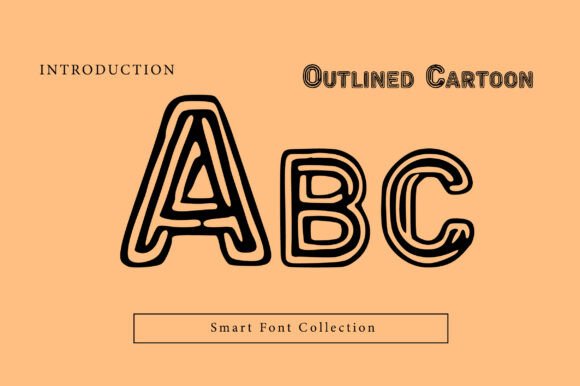
Introduction to Outlined Cartoon Font
Remember that moment when you stumbled upon the perfect font for a project, and it instantly elevated the entire design? That’s exactly what the Outlined Cartoon Font can do for your next creative project. With its bold, playful style, this font is a game-changer for designers looking to add a touch of youthful excitement to their designs.
As a versatile design resource, the Outlined Cartoon Font is perfect for a wide range of applications, from children’s event flyers to high-impact merchandise. Its unique “double-line” outline effect gives every character an immediate 3D, comic-book presence, making it a standout choice for designers who want to make a statement.
Key Features of Outlined Cartoon Font
- Unique, hand-drawn design that adds a creative touch to any project
- Outstanding for use in children’s books, magazines, and other publications that require a playful and engaging design
Honest Review: Outlined Cartoon Font
I recently came across the Outlined Cartoon Font and was excited to give it a try. As a designer, I’m always on the lookout for unique and high-quality design resources to enhance my creative projects.
The Outlined Cartoon Font is a fantastic addition to any design library, offering a playful and modern aesthetic that’s perfect for a variety of applications. ✨ One of the standout features of this font is its transparent background, making it incredibly versatile and easy to use.
Overall, I’m impressed with the Outlined Cartoon Font. It’s a great addition to any design library, and its unique aesthetic makes it a great choice for creative projects. With a little creativity, this font can be used in a variety of applications, from logos to social media graphics.
How to Use Outlined Cartoon Font
The Outlined Cartoon Font is a versatile design resource ideal for creative projects requiring a playful and modern aesthetic. With its transparent background and high-quality design, it’s perfect for adding a touch of whimsy to your visuals.
To get the most out of the Outlined Cartoon Font, experiment with different font sizes, colors, and styles to find the perfect look for your design.
The Outlined Cartoon Font is ideal for a variety of design projects, including:
- Children’s books and educational materials
- Marketing and advertising campaigns
- Party invitations and decorations
- Graphic design and digital art
Alternatives to Outlined Cartoon Font
1. Comic Sans MS
Comic Sans MS is a classic sans-serif font that was designed specifically for use in comics and other creative projects. It features a playful, childlike feel that can be perfect for designs that require a lighthearted tone. When to use: For projects that require a casual, approachable feel, such as children’s books or website headers. How it compares: Comic Sans MS has a more rounded and smooth appearance compared to Outlined Cartoon Font, which has a more geometric and bold look.